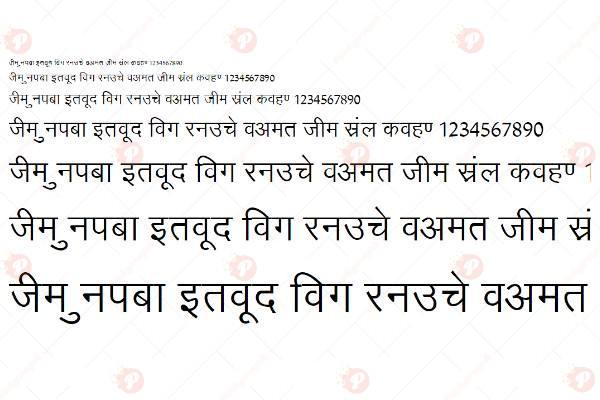
The Arjun Font is a versatile and elegant modern typeface with clean lines and a professional style. Perfect for headlines, posters, banners, logos, branding, and display typography, Arjun adds a touch of sophistication to any project.
Whether for digital or print design, Arjun ensures your work stands out with clarity and style.
Style: Elegant / Modern / Display Typeface
Perfect for: Headlines, Posters, Banners, Logos, Branding & Display Typography
| Optimum Size | Large (Display / Poster) |